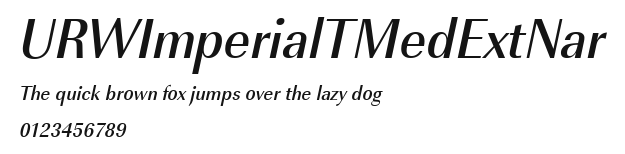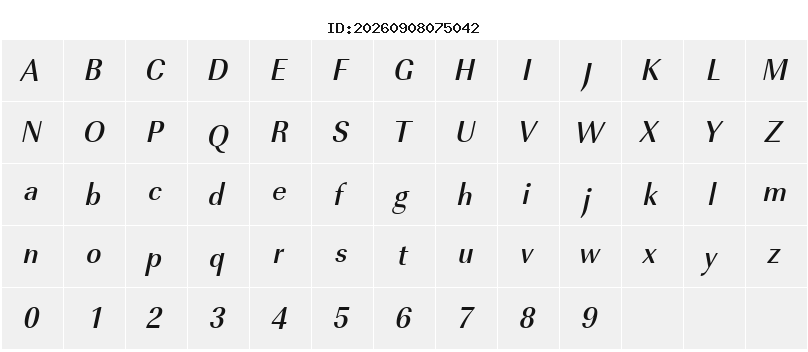
About URWImperialTMedExtNar.ttf
URWImperialTMedExtNar.ttf is a modern, elegant sans-serif font designed for ultimate readability and visual harmony. Perfect for branding, headlines, web design, and print materials.